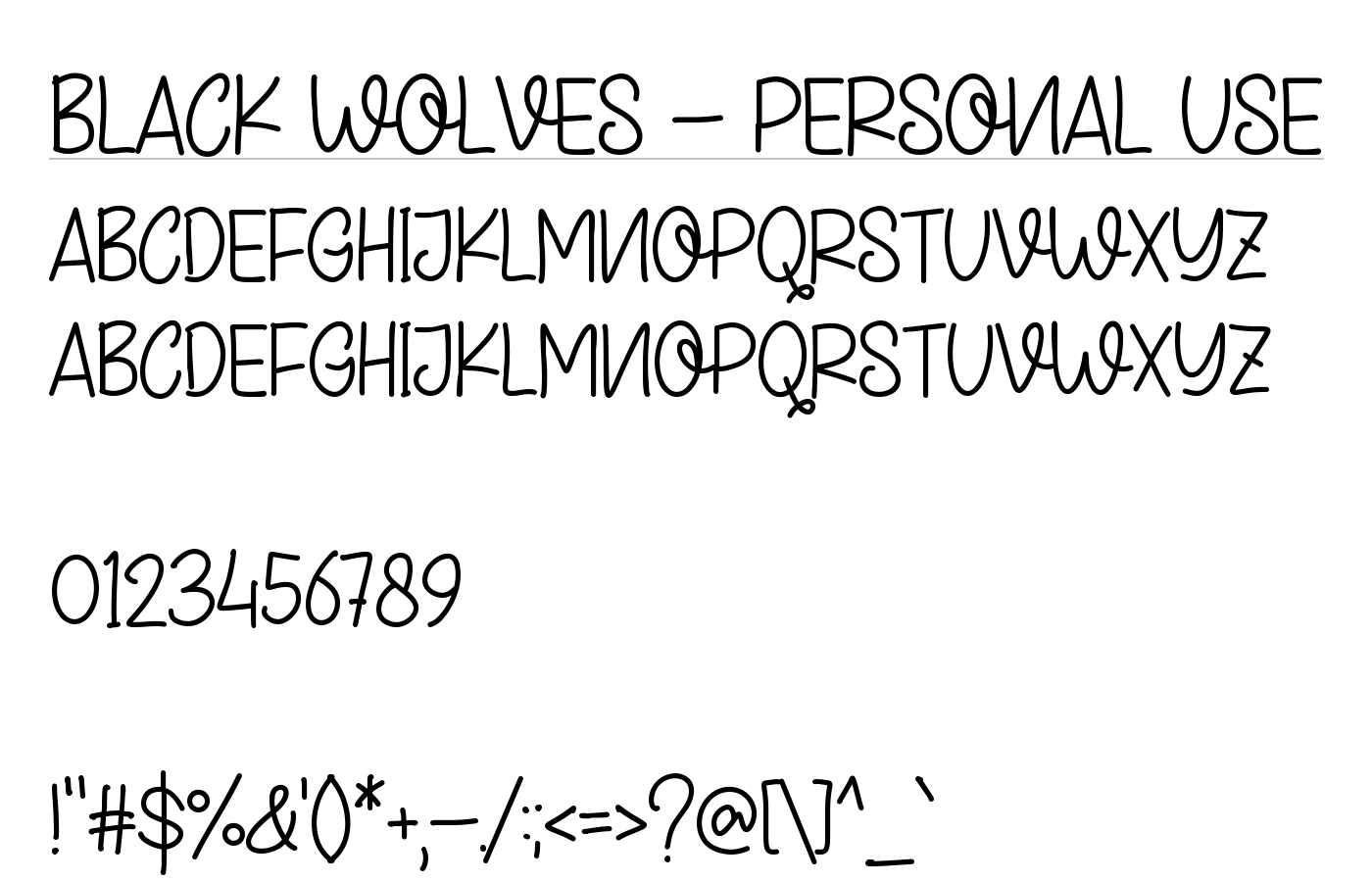
Black Wolves is a playful and casual handwritten sans serif font with a tall, narrow structure and light weight. Its smooth, flowing lines and quirky letterforms create a fun, approachable feel, making it ideal for personal projects, informal branding, and creative headlines. This font works well where a friendly, whimsical touch is desired without sacrificing readability.
Black Wolves - Personal Use Font
About Black Wolves - Personal Use Font
| Designer | Ahmad Afandi |